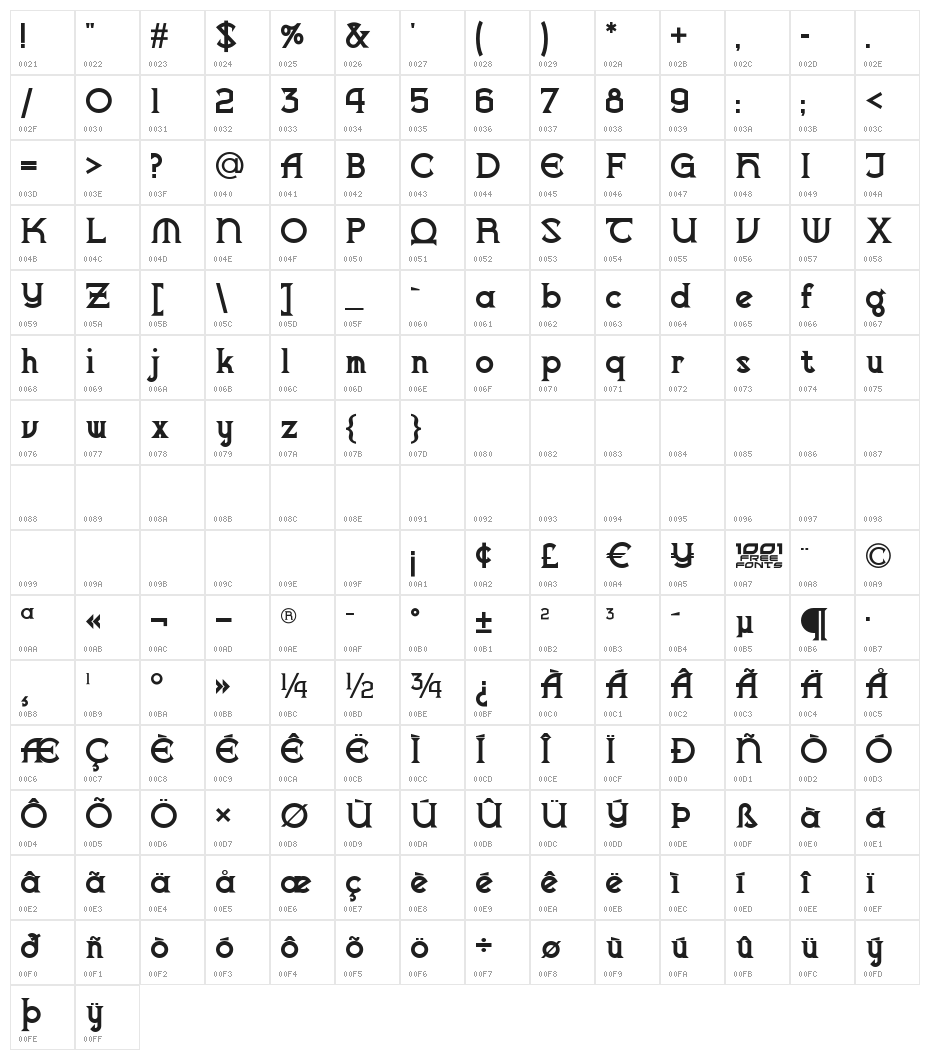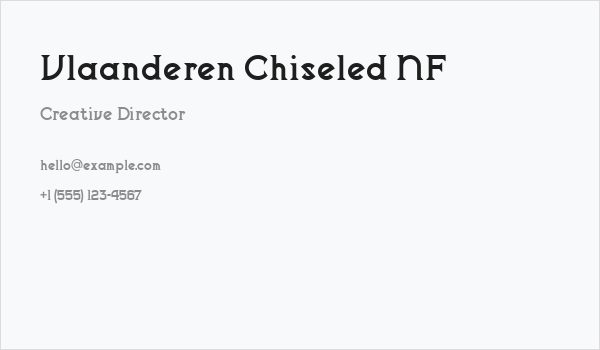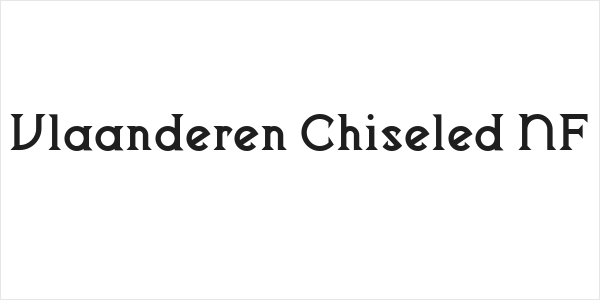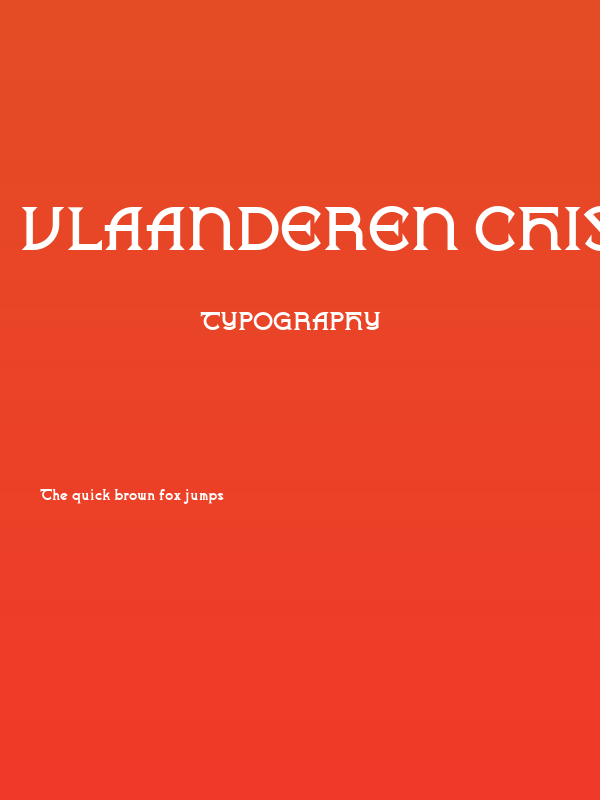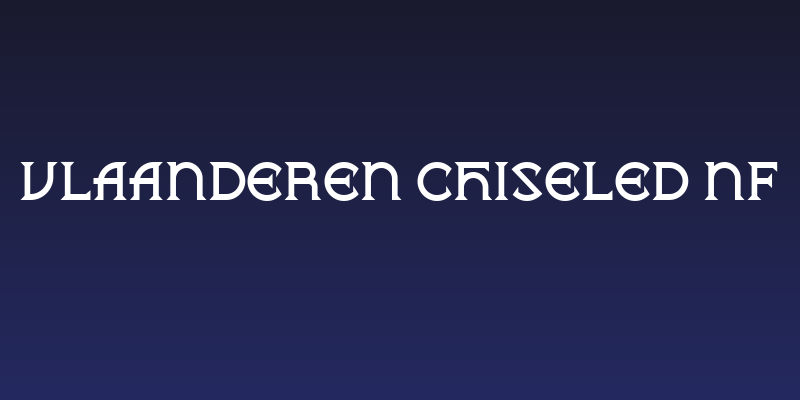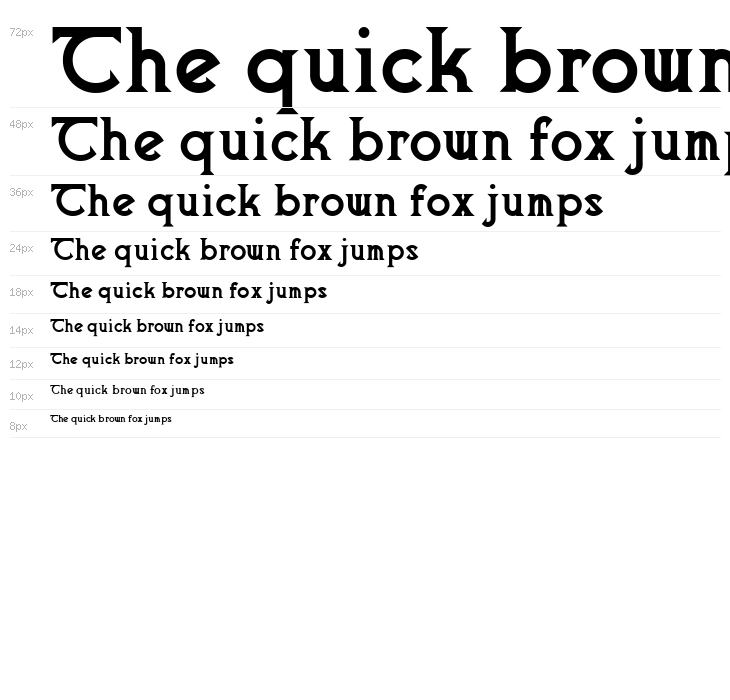
Vlaanderen Chiseled NF Font
Vlaanderen Chiseled NF Description
This font features a bold and chiseled appearance, reminiscent of classic stone engravings. The uppercase letters exhibit strong, angular serifs and a distinctive geometric style, while the lowercase letters maintain a consistent weight with slightly rounded edges. The numerals are robust and align well with the overall aesthetic, providing a cohesive look. Special characters are crafted with the same attention to detail, ensuring versatility across various applications. The font's unique style makes it suitable for projects requiring a touch of historical or architectural elegance.
Overall StyleClassic
Use CaseHeadlines, Logos, Signage
Proposed ProjectsIdeal for use in branding, signage, posters, and any design requiring a historical or architectural theme.